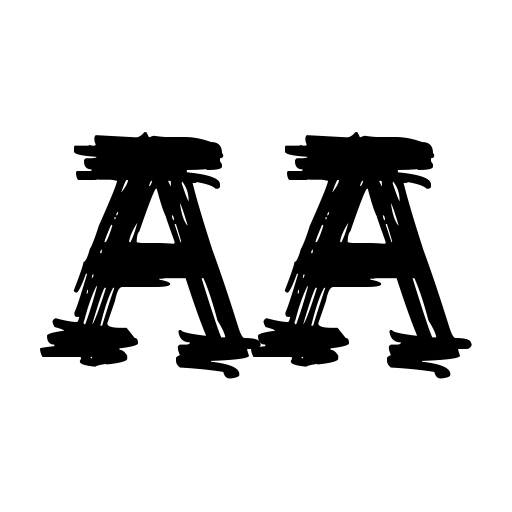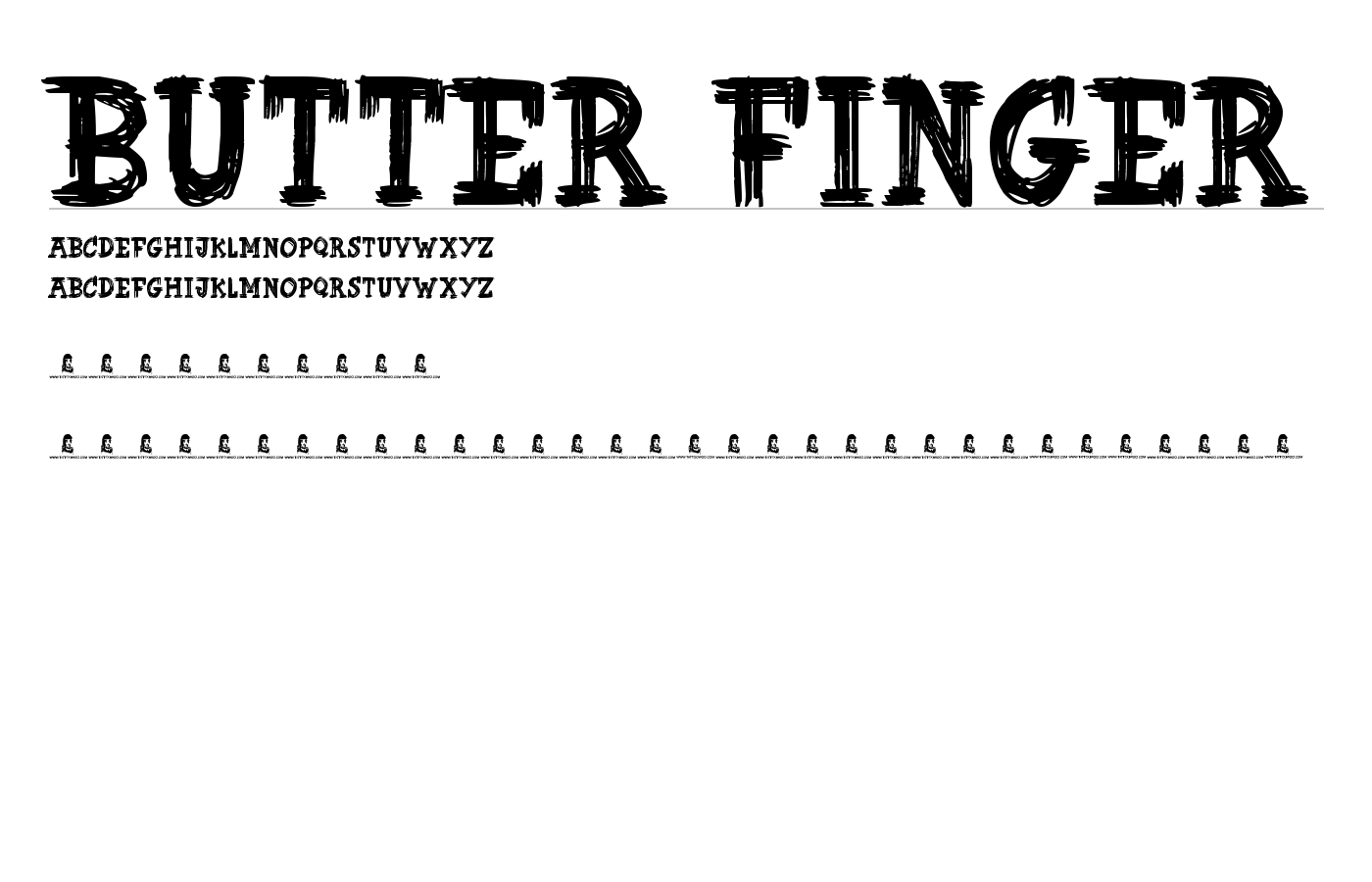
Butter Finger is a bold slab serif font with a distressed, textured style that gives it a hand-crafted and slightly rough appearance. Its strong, condensed letterforms and uneven strokes create a playful yet vintage feel, making it ideal for eye-catching headlines, posters, and branding that need a quirky, energetic vibe. This font works best where a bold, informal personality is wanted, especially in creative or retro-themed designs.
Butter Finger Font
About Butter Finger Font